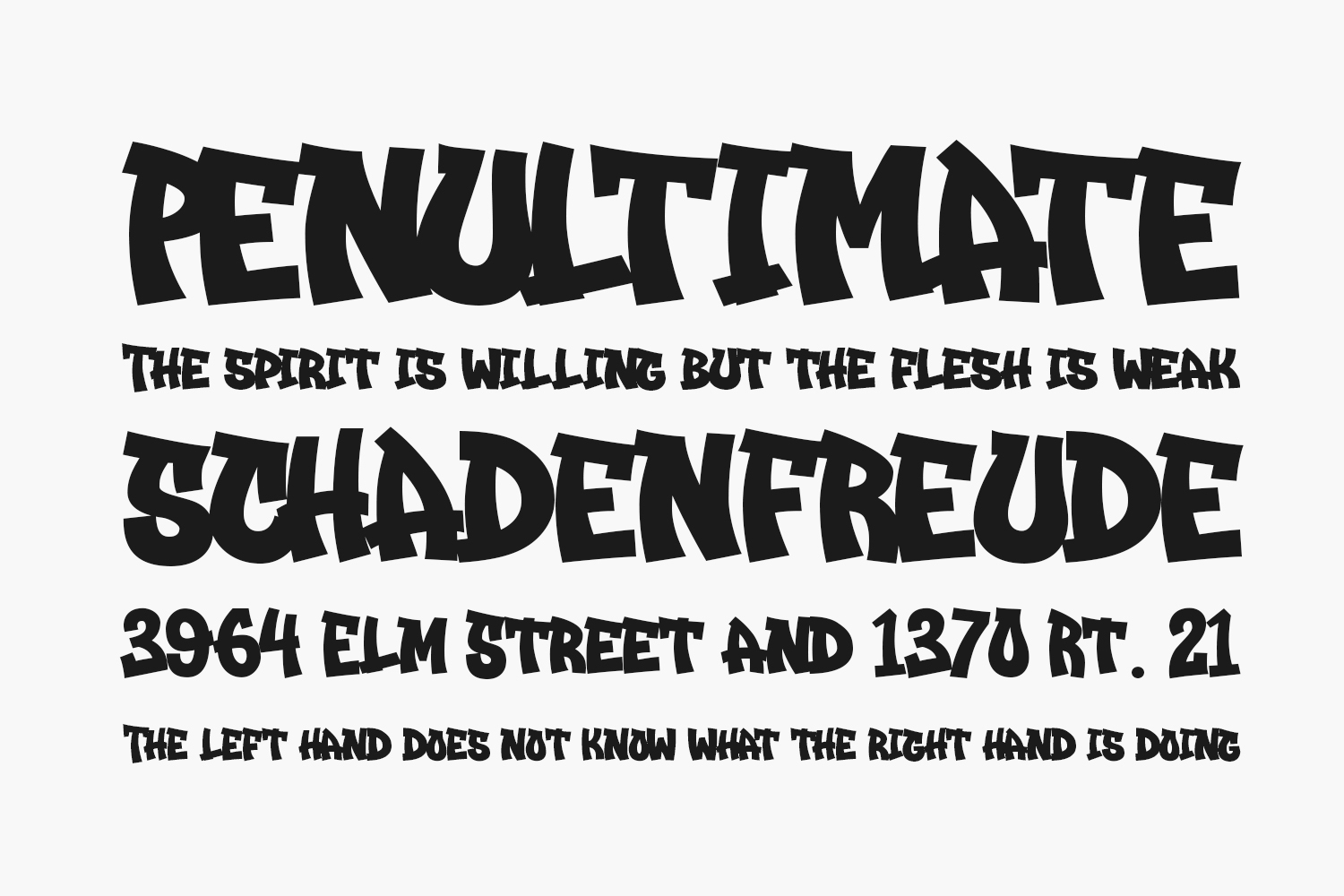
Graffiti Urban – Free Street‑Art Display Font Family with Shadow Style
Graffiti Urban is a bold street‑art display font family by Nirmana Visual, available in Regular and Shadow styles. Designed to echo classic graffiti tags and marker lettering, this free typeface delivers an edgy, urban vibe ideal for posters, logos, banners, album covers, and youth‑oriented designs. The family supports basic Latin characters and is provided under a free-for-personal-use license. Upgrade to commercial rights via donation or contacting the designer. Bring authentic street energy to your visuals with Graffiti Urban!
Why Choose Graffiti Urban?
- Street‑Art Authenticity: Bold, jagged strokes mimic real graffiti lettering for a raw, expressive look.
- Two Distinct Styles: Includes both Regular and Shadow variants to add depth and impact.
- High Visual Impact: Ideal for large-format use in posters, banners, and album art.
Where to Use Graffiti Urban?
- Posters & Flyers: Perfect for event promos, street festivals, and music gigs.
- Logo & Branding: Makes a bold statement for skate, hip-hop, urban apparel, or cultural brands.
- Album Covers: Fits edgy or underground musical styles like rap, punk, and electronic.
- Banners & Signage: Eye-catching for urban-themed cafés, pop-ups, or graffiti cafés.
- Social Media: Great for gritty, street-style Instagram, YouTube thumbnails, and TikTok visuals.
Design Tips with Graffiti Urban
Use Graffiti Urban in large sizes (48pt and up) to capture its rough texture and shadow depth. Combine the Regular with the Shadow variant for a layered, three-dimensional effect. Pair with clean sans-serifs like Kenyan Coffee or Old Sans Black to create contrast. Bold color gradients or spray-paint textures enhance its urban authenticity.
Designed by Nirmana Visual